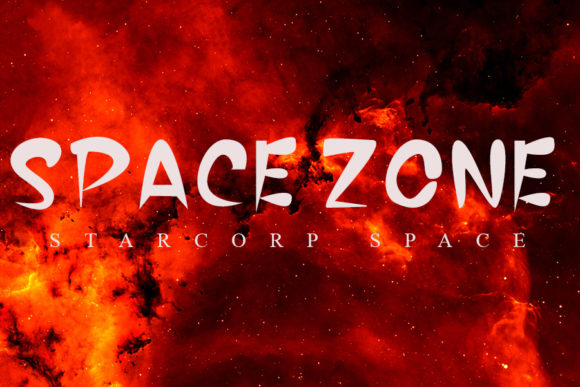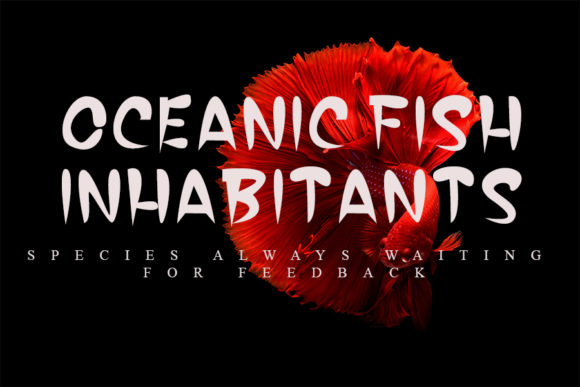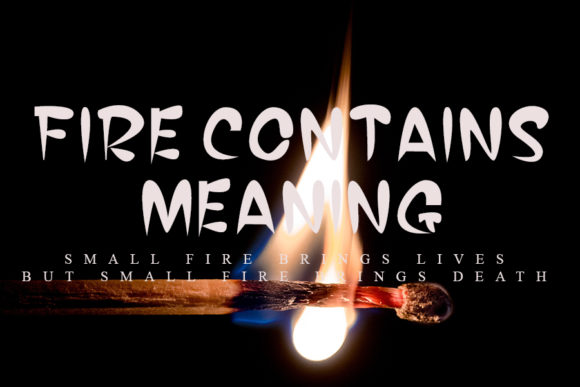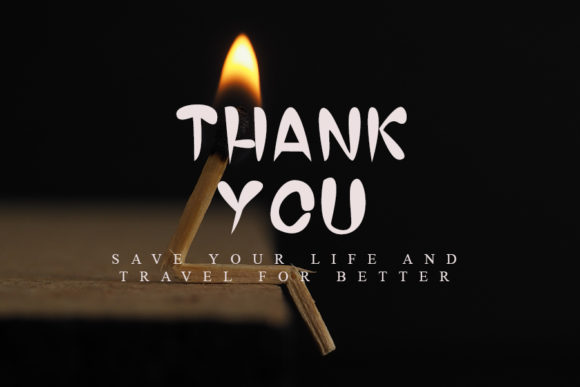
Introduction to Red Zone Font
Red Zone is a simple and unique display font.
Add it to your creative ideas and notice how it makes them stand out .
Key Features of Red Zone Font
Why Choose Red Zone Font?
Red Zone Font offers exceptional quality and versatility, making it a valuable addition to your design toolkit. Whether you’re creating for personal projects or commercial use, Red Zone Font delivers professional results.